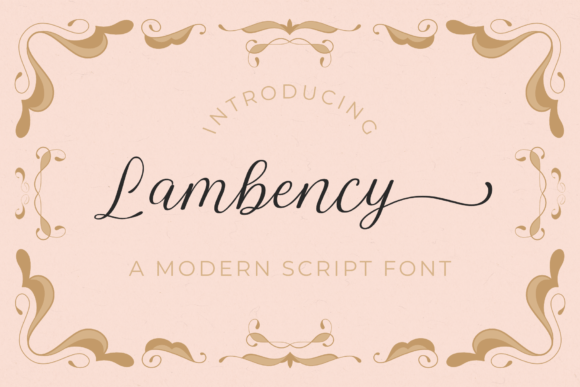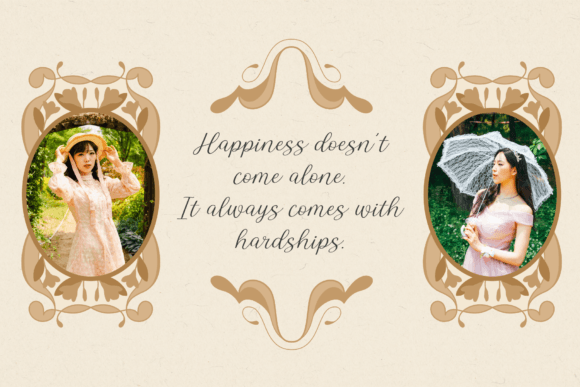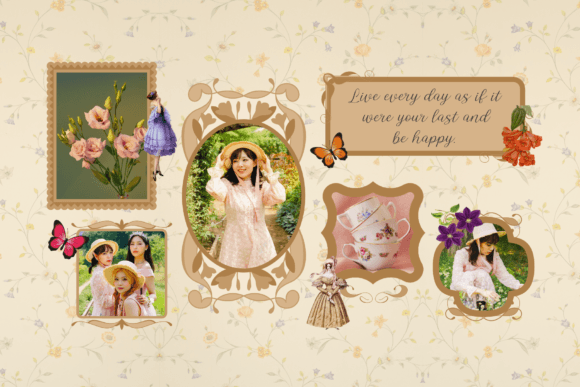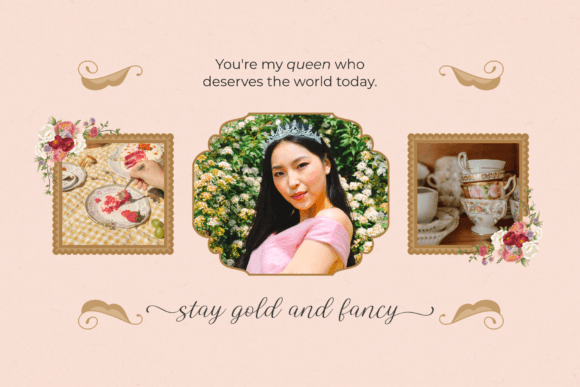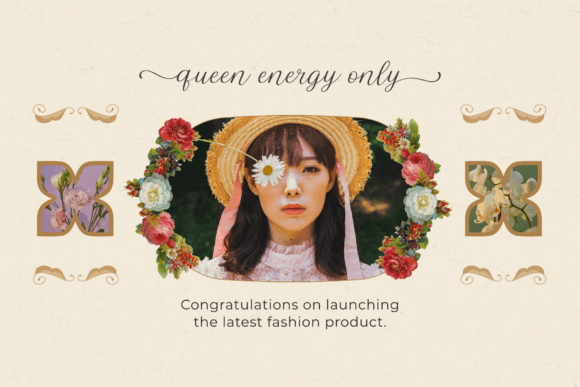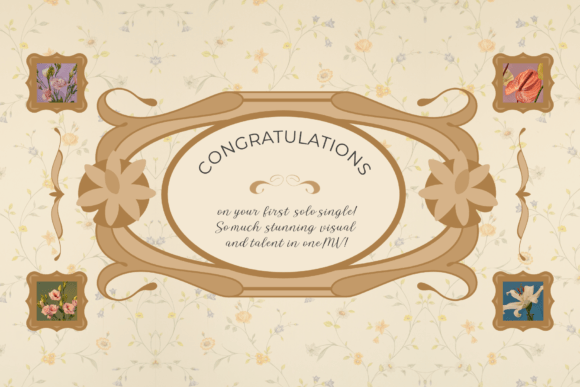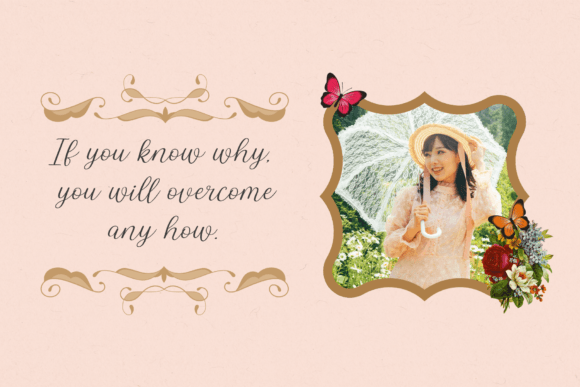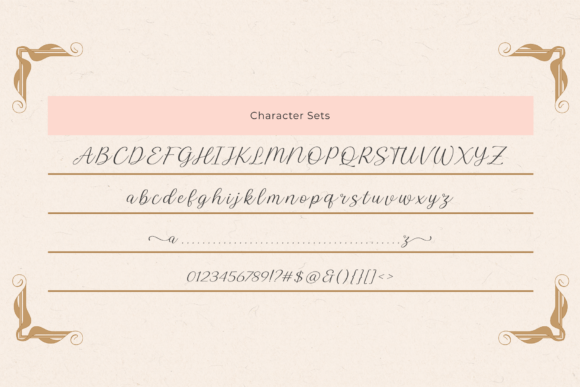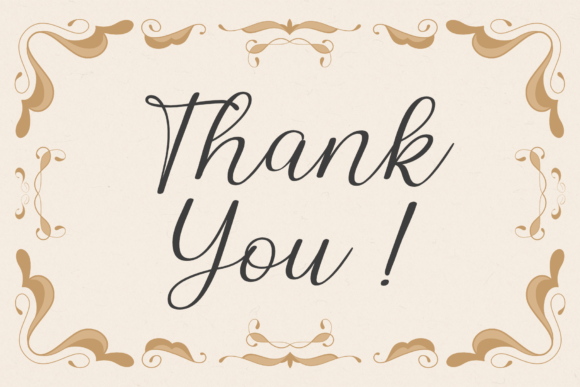
Lambency Font
About Lambency Font
Lambency is a contemporary script font that seamlessly blends elegance with a natural touch. Notably, each character features an initial tail and an ending tail, enhancing the overall visual appeal. This font is tailored for a range of applications, making it perfect for wedding invitations, quotes, branding, logos, and more.
The modern and elegant quality of Lambency is evident in its script design, where each character flows gracefully to create a harmonious and refined aesthetic. The inclusion of initial and ending tails adds a touch of sophistication, making it particularly well-suited for projects that require a stylish and polished look.
Lambency’s versatility shines through in its ability to elevate various design contexts. Whether you’re working on wedding invitations that demand a romantic touch or crafting a brand logo that requires a blend of elegance and modernity, Lambency stands out as a font that adds a layer of sophistication.
The PUA encoding feature of Lambency is noteworthy, allowing easy access to a wide array of glyphs and swashes. This enhances the user experience, providing flexibility for customization and personalization of your designs.
Imagine Lambency enhancing your designs, whether on refined quotes, elegant branding materials, or any project that calls for a modern script font. The font becomes a valuable asset that not only adds visual appeal but also conveys a sense of sophistication and style.
In summary, Lambency is more than just a font; it’s a design asset that brings elegance and modernity to your projects. Embrace its natural touch and utilize the included tails confidently, making Lambency the typeface that elevates your designs with a timeless and refined charm.